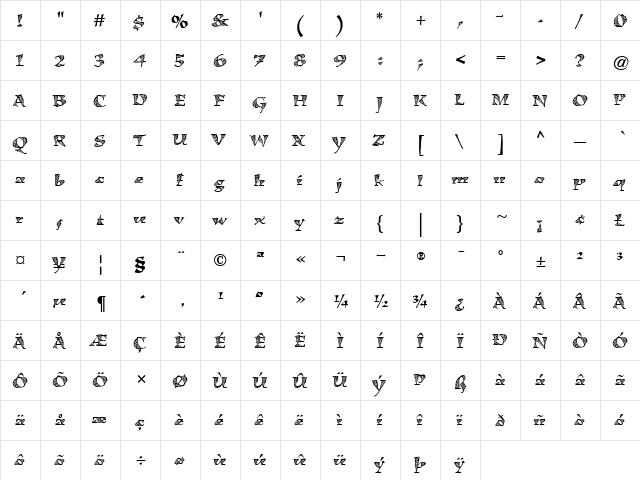
KigaliZigZag Roman
Design Context for KigaliZigZag Typeface
KigaliZigZag is a composed and adaptable typeface that performs quietly and consistently across a wide range of design contexts.